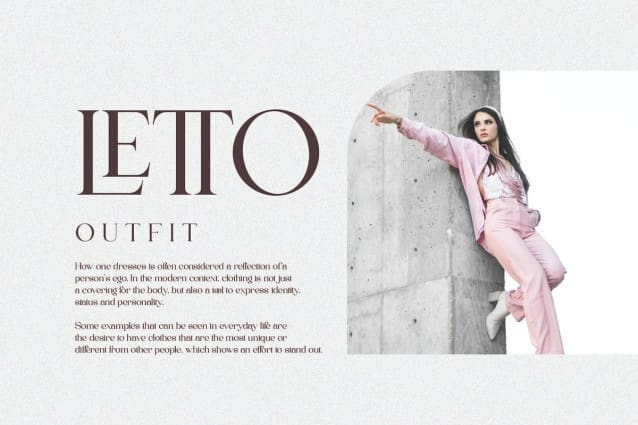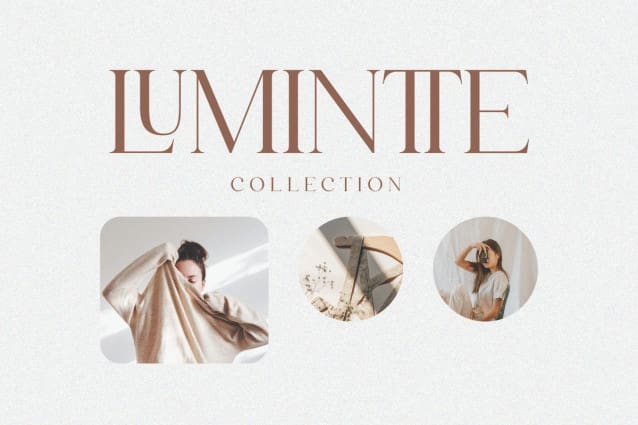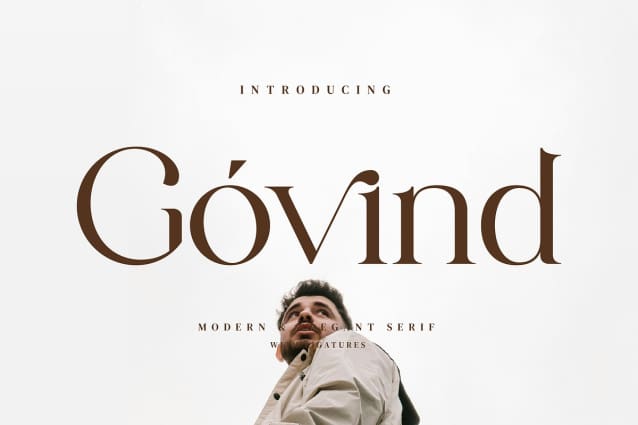
Govind Font
Govind Font – Stylish Ligature Typeface, inspired by the famous minimalist logo perfect for the purposes of designing templates, brochures, videos, advertising branding, logos and more.